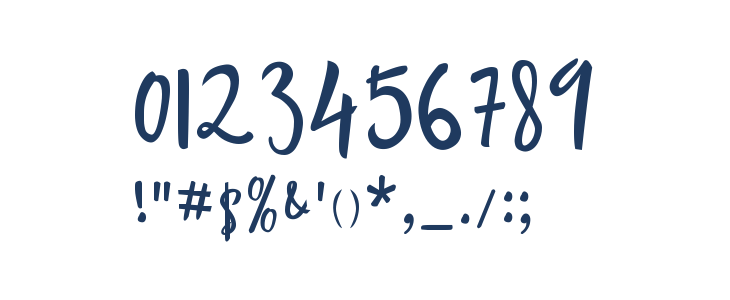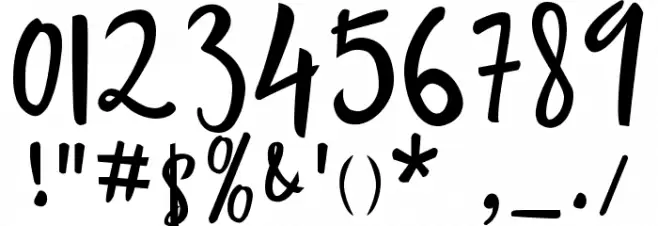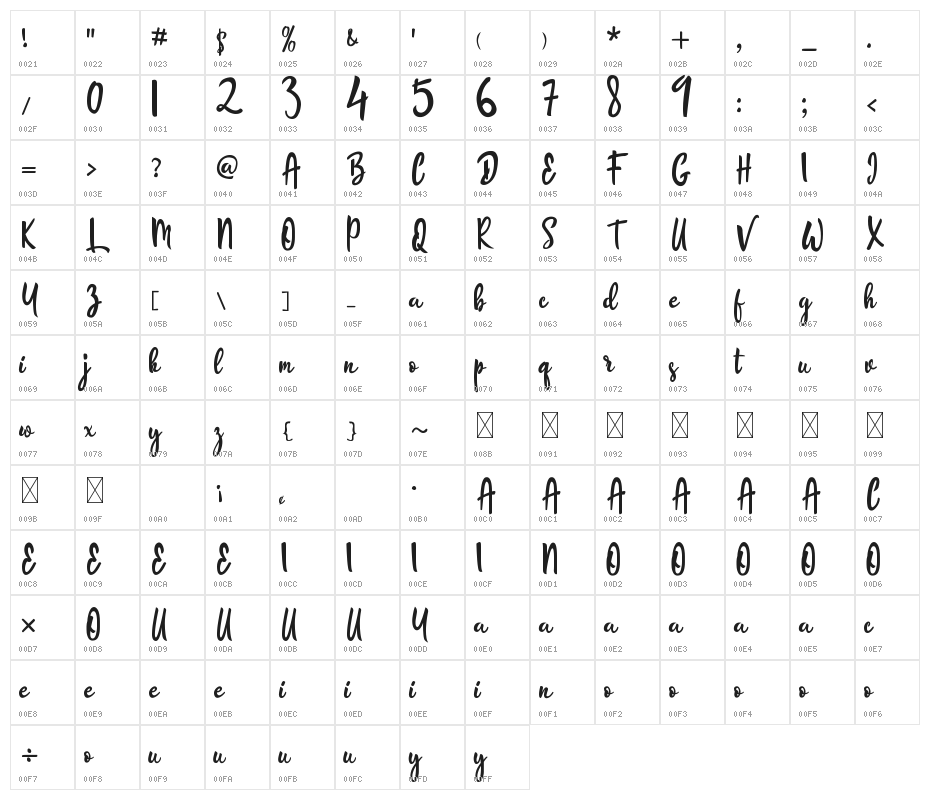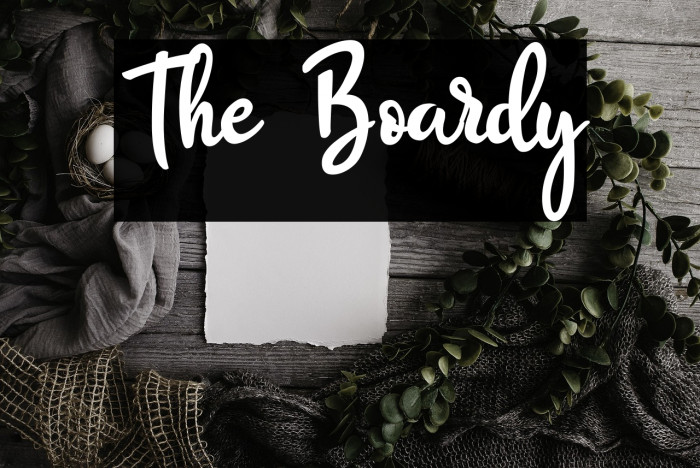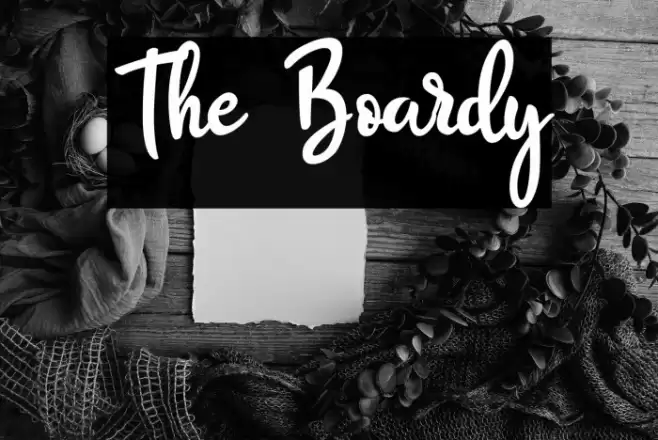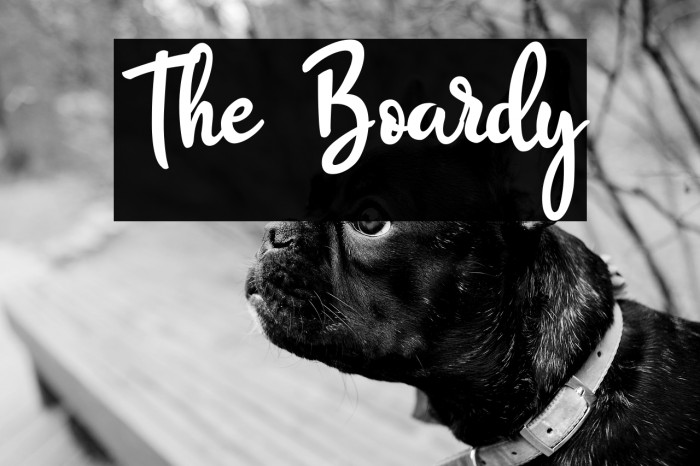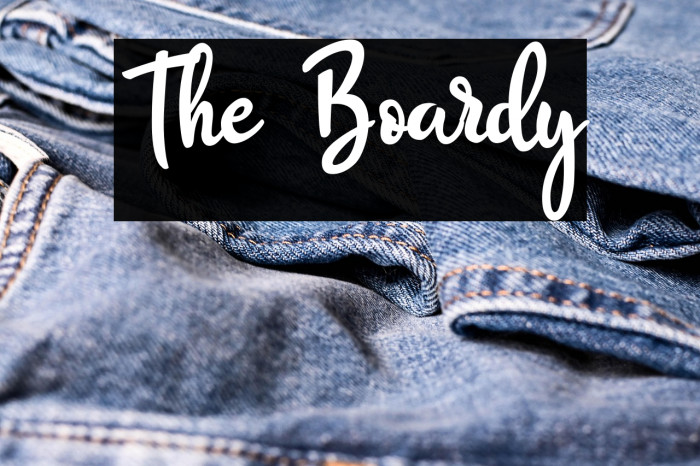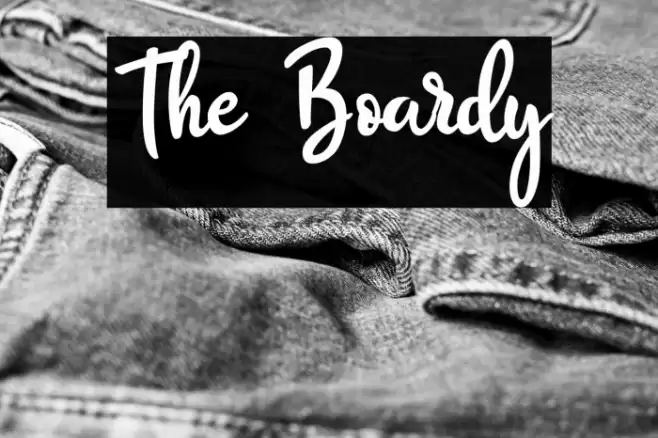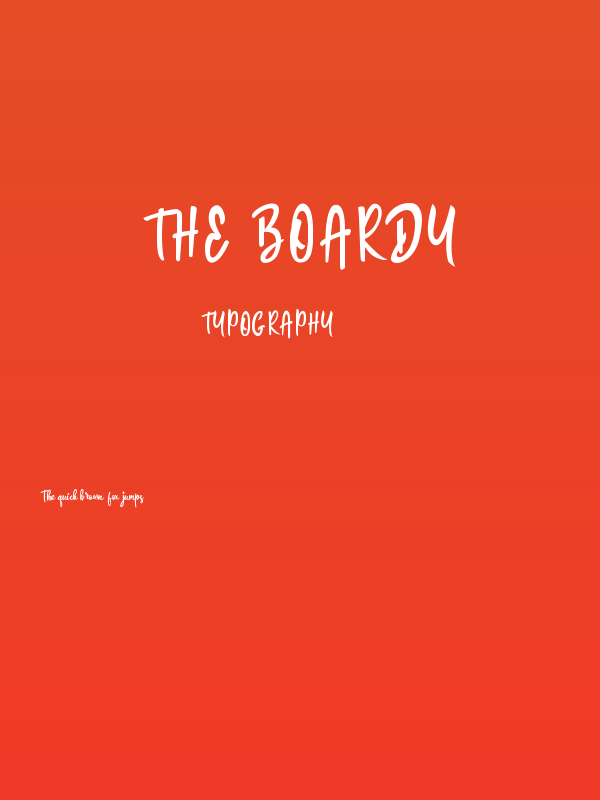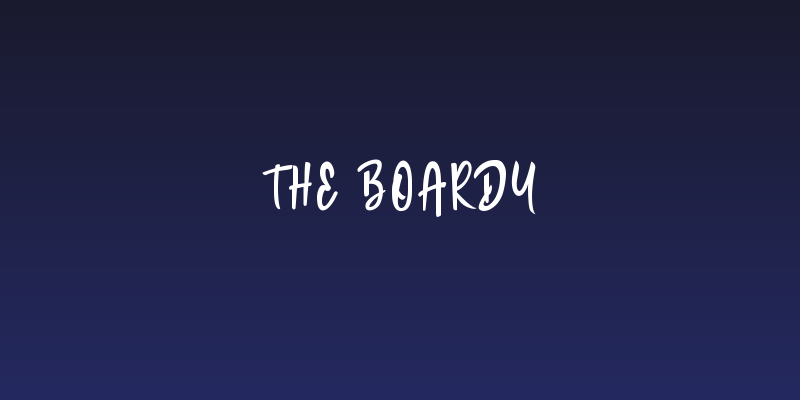
The Boardy Font
The Boardy Description
This font features a playful and energetic script style with a handwritten feel. The uppercase letters are bold and slightly slanted, giving a sense of movement and dynamism. The lowercase letters are more fluid and connected, enhancing the handwritten aesthetic. The numbers are consistent with the overall style, maintaining the same playful and bold characteristics. Special characters are creatively designed, fitting seamlessly with the rest of the font. The strokes are thick, with a medium contrast between thick and thin lines, adding to the font's lively appearance.
| Overall Style | Playful, Energetic |
| Proposed Projects | Ideal for greeting cards, playful branding, social media graphics, and creative posters. |